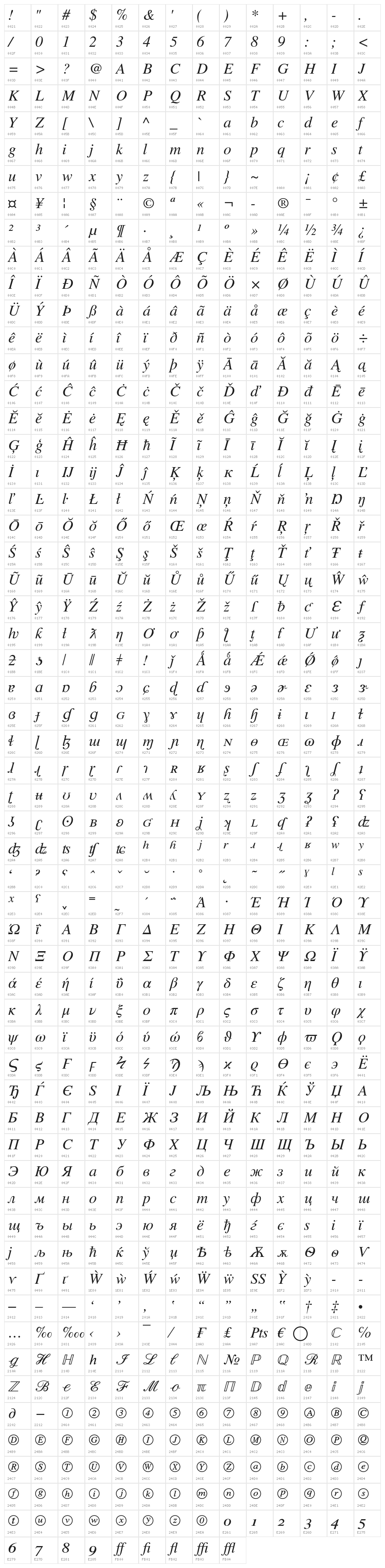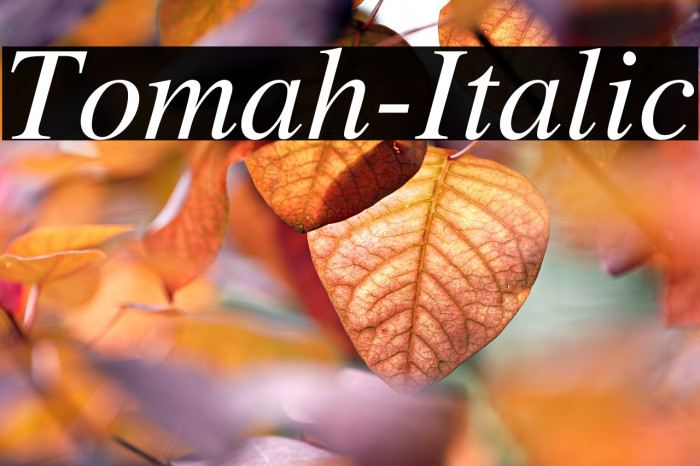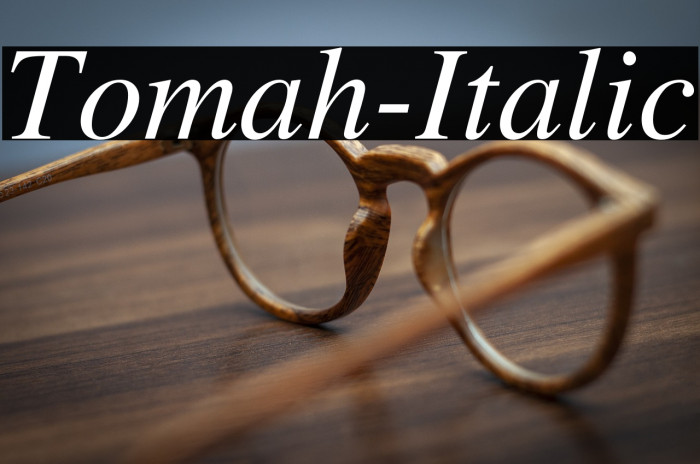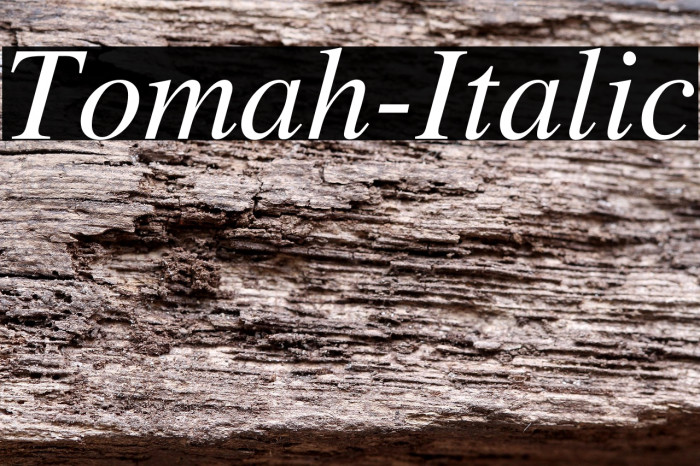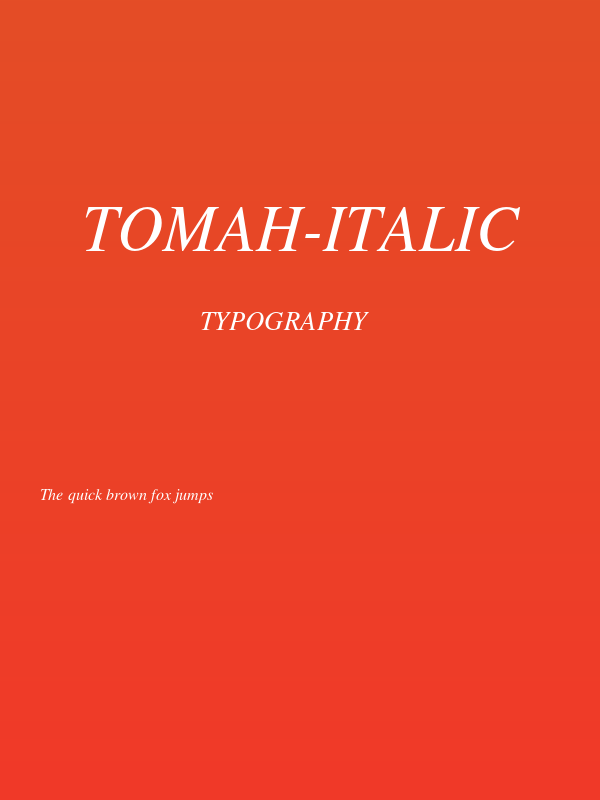
Tomah-Italic Font
Tomah-Italic Description
This font exhibits a dynamic and flowing style, characterized by its italicized and slightly slanted letterforms. The strokes are smooth and continuous, giving it a sense of motion and elegance. The characters are well-proportioned, with a moderate contrast between thick and thin strokes, enhancing readability while maintaining a stylish appearance. The font's design is both modern and versatile, suitable for a variety of applications where a touch of sophistication is desired.
Classic roman typeface, modified and curated from the STIX Fonts (TM). Free for unlimited private and commercial use. SIL Open Font Licence (OFL) Version 1.1.
| Use Case | Logos, Invitations, Editorial Design |
| Proposed Projects | Ideal for branding, editorial design, invitations, and any project requiring a sophisticated and elegant touch. |